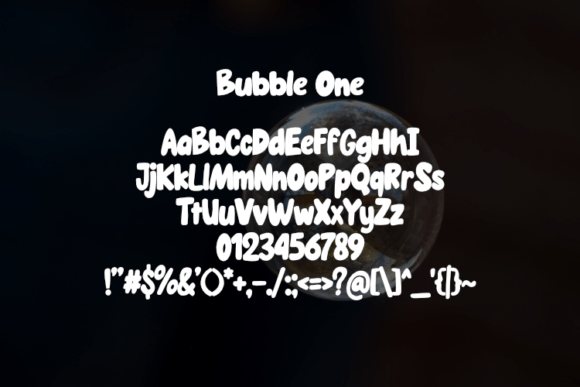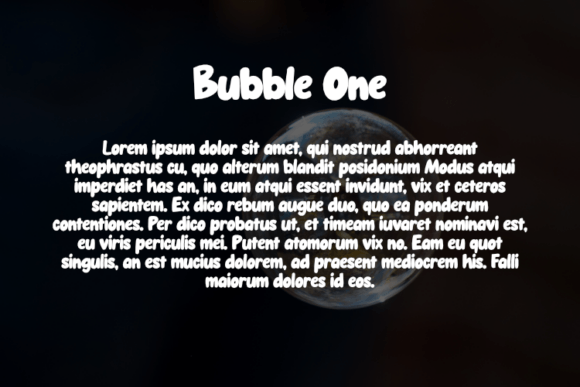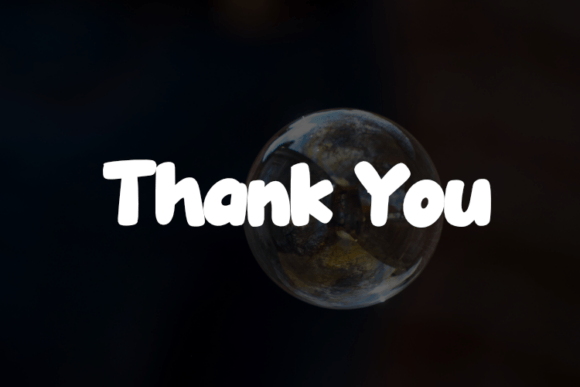
Where Style Meets Versatility: Discover the Magic of Bubble One Font
Have you ever been in the midst of a creative rush, surrounded by scattered sketches, half-finished designs, and an endless stream of ideas? The moment you finally settle on the perfect font – one that elevates your design from ordinary to extraordinary – is pure bliss. For designers seeking that elusive combination of style and versatility, we’re excited to introduce the Bubble One Font, expertly crafted for apparel, t-shirt, and eclectic product aesthetics.
Bubble One Font Key Features
- Font Family: Bubble One is a sans-serif font family designed for digital use, with a unique rounded edge aesthetic.
- Character Set: Supports a wide range of languages, including Latin, Cyrillic, and Greek alphabets, with over 2000 glyphs.
- Unique Characteristics: The rounded edge aesthetic of Bubble One Font creates a friendly and approachable feel, making it ideal for use in branding, advertising, and user interface design.
Bubble One Font Review
I recently had the chance to work with the Bubble One Font, and I’m excited to share my honest thoughts on it.
- Playful and whimsical design: The Bubble One Font is perfect for projects that need a touch of fun and playfulness.
- Highly customizable: This font offers a wide range of customization options, making it easy to adjust the style to fit your specific needs.
- Smooth and legible: The font is highly legible, even at small sizes, which is essential for any project.
- Not ideal for formal or professional projects: The playful design may not be suitable for more formal or professional projects.
- May require adjustments for certain languages: I noticed that the font may require adjustments for languages with non-Latin scripts.
Overall, I think the Bubble One Font is a great addition to any designer’s toolkit. While it may have some limitations, its unique design and high level of customization make it a valuable resource for the right projects. If you’re looking for a playful and whimsical font, the Bubble One Font is definitely worth checking out.
Bubble One Font Practical Application Guide
Tips for Getting the Most Out of Bubble One Font
To get the most out of the Bubble One font, use it sparingly to add a touch of whimsy to your designs.
Pair the font with bold, contrasting colors to make it stand out.
Use the font for headings or titles to add a playful touch.
The Bubble One font is perfect for:
Children’s books and educational materials
Party invitations and decorations
Fun and playful marketing materials